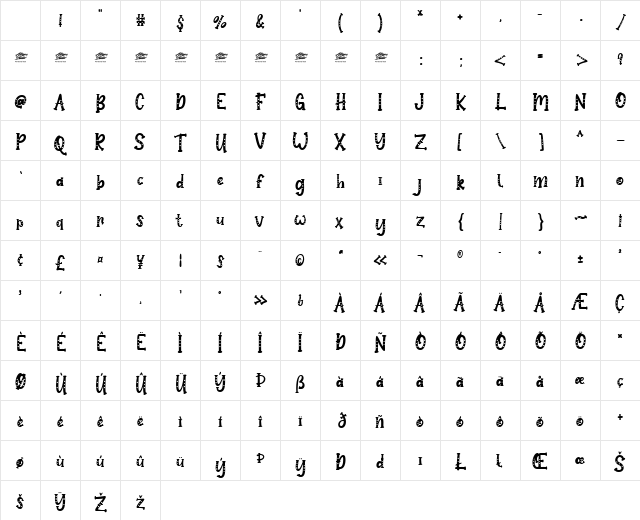
Complete Baby Snowman Display - PUL Regular glyph index. Displaying only characters natively supported by Baby Snowman Display - PUL Regular font.
Baby Snowman Display - PUL is built around its visual character rather than neutral utility - its distinctive forms are designed to make an impression at display sizes.
Font Pairing: Pair with a clean neutral sans-serif for body copy to let Baby Snowman Display - PUL's character lead without overwhelming the composition.
Pro Tip: Use Baby Snowman Display - PUL exclusively at display sizes - it was designed to be seen, not read at length. Let a neutral companion handle body copy.